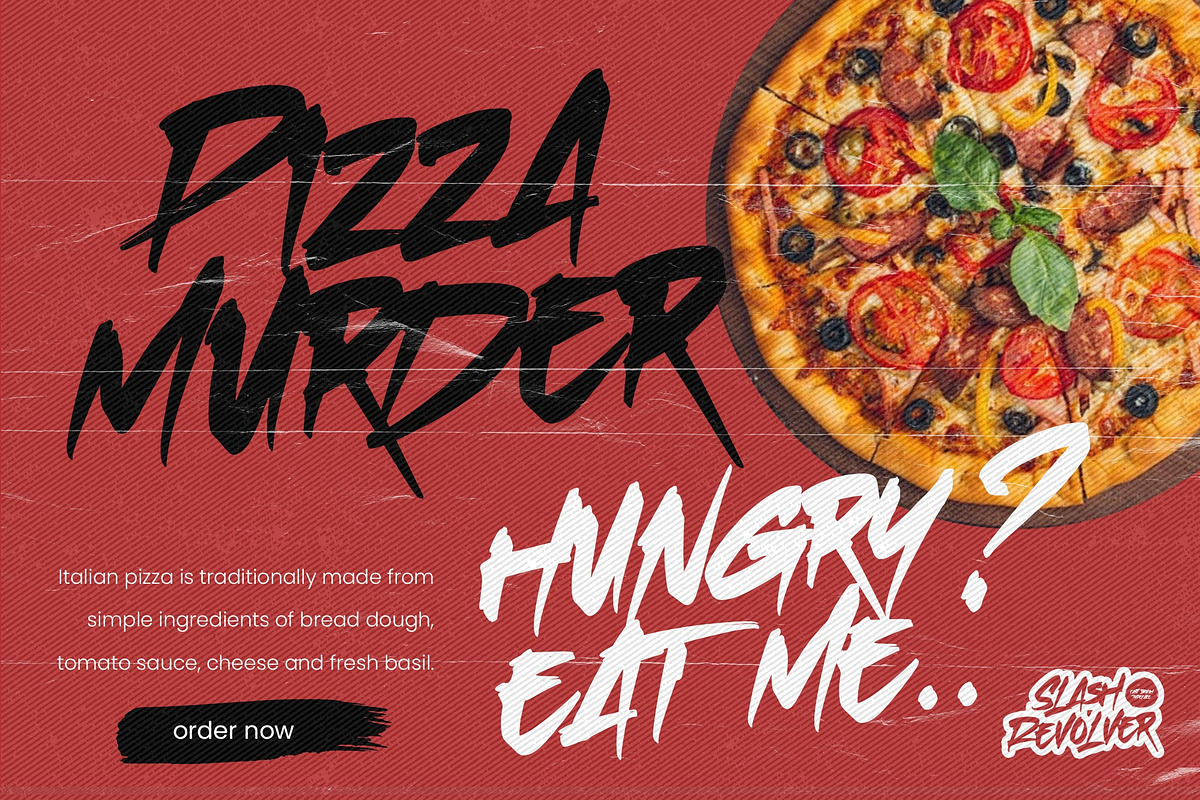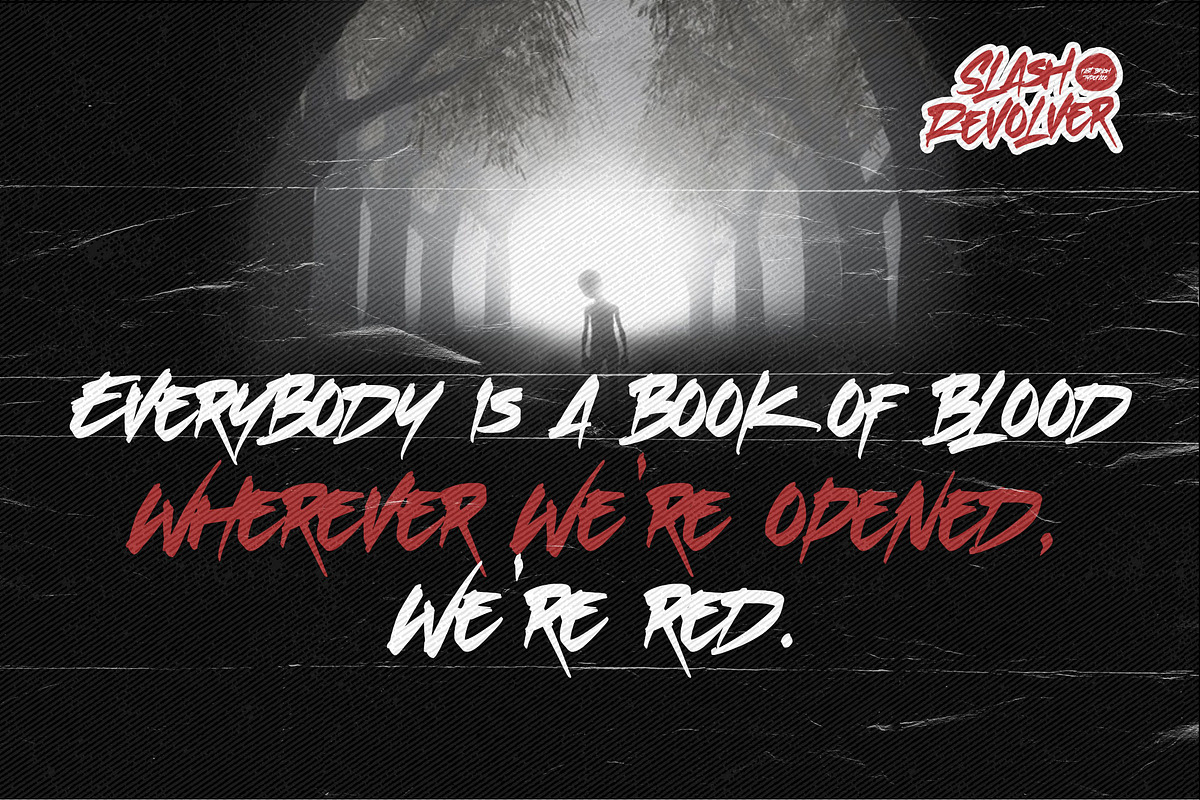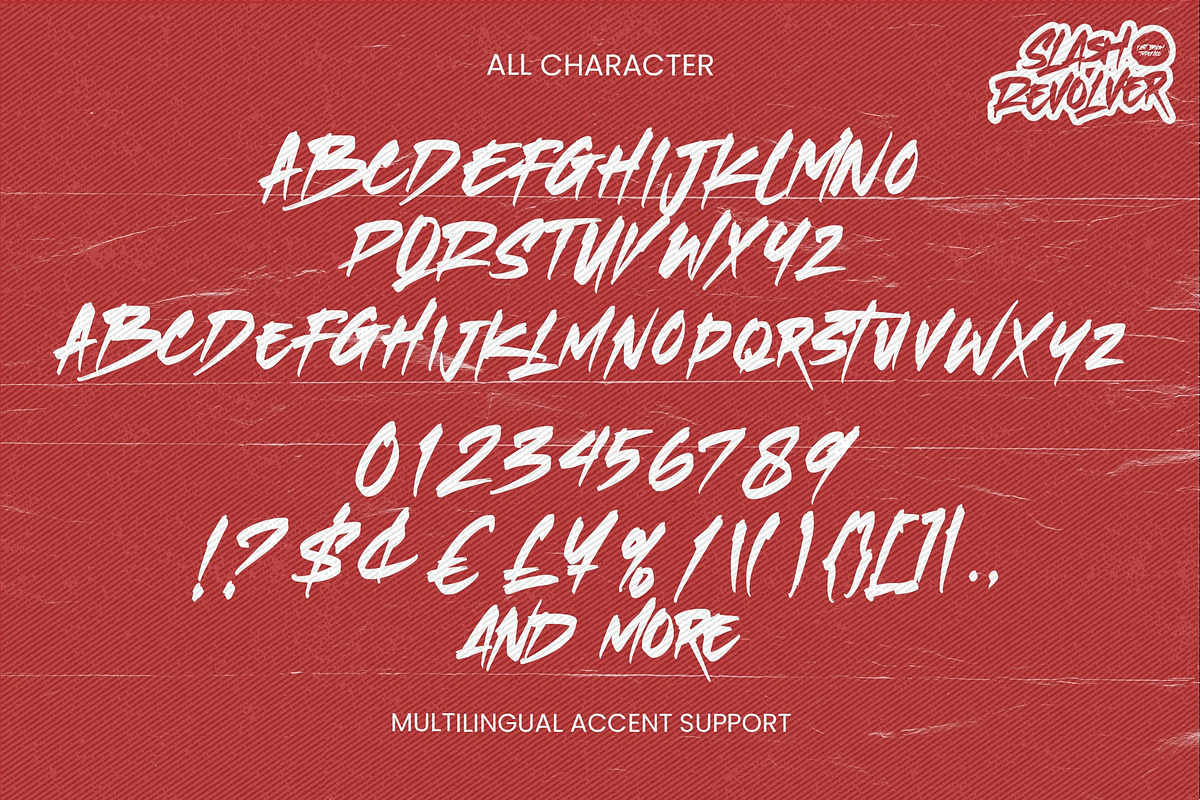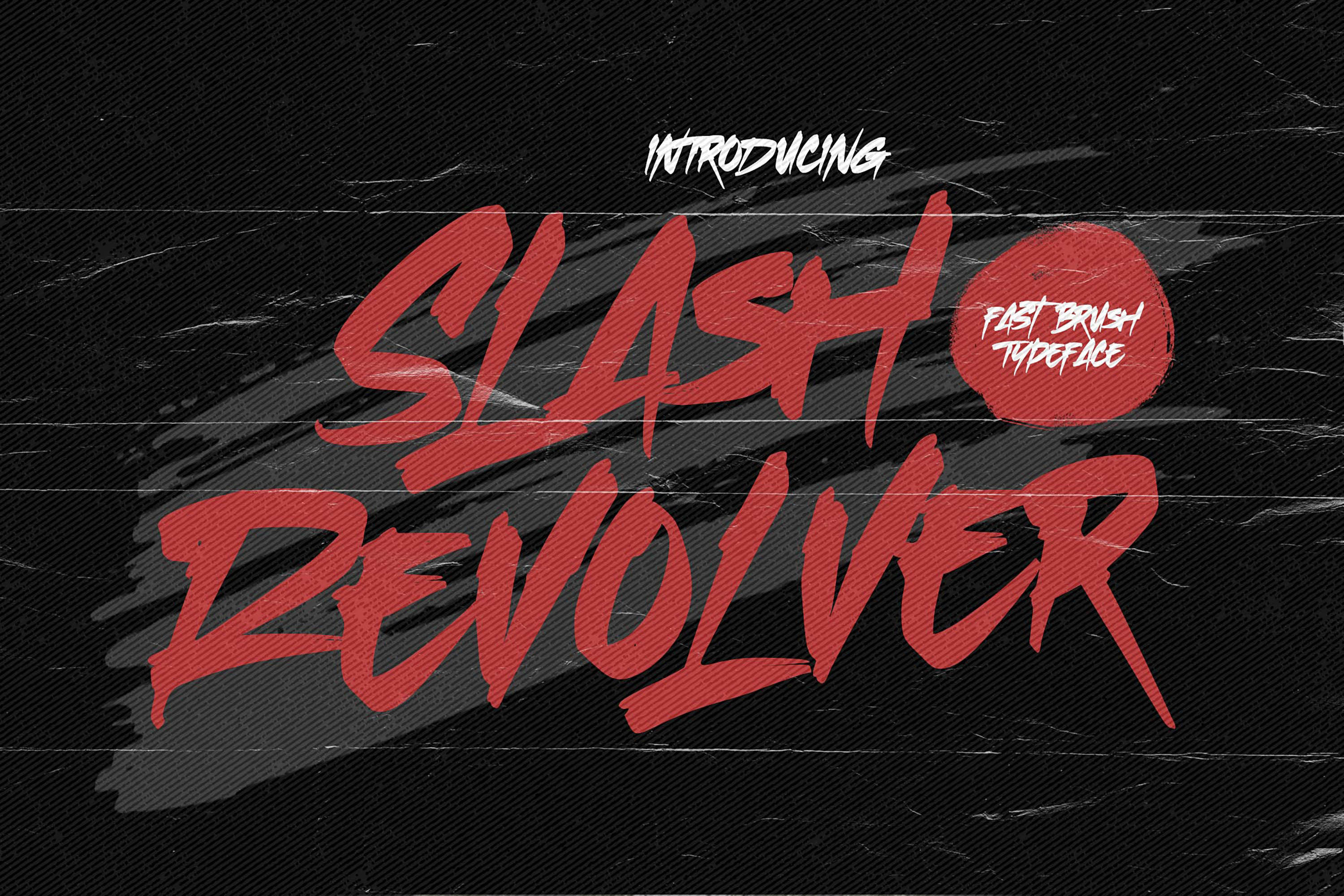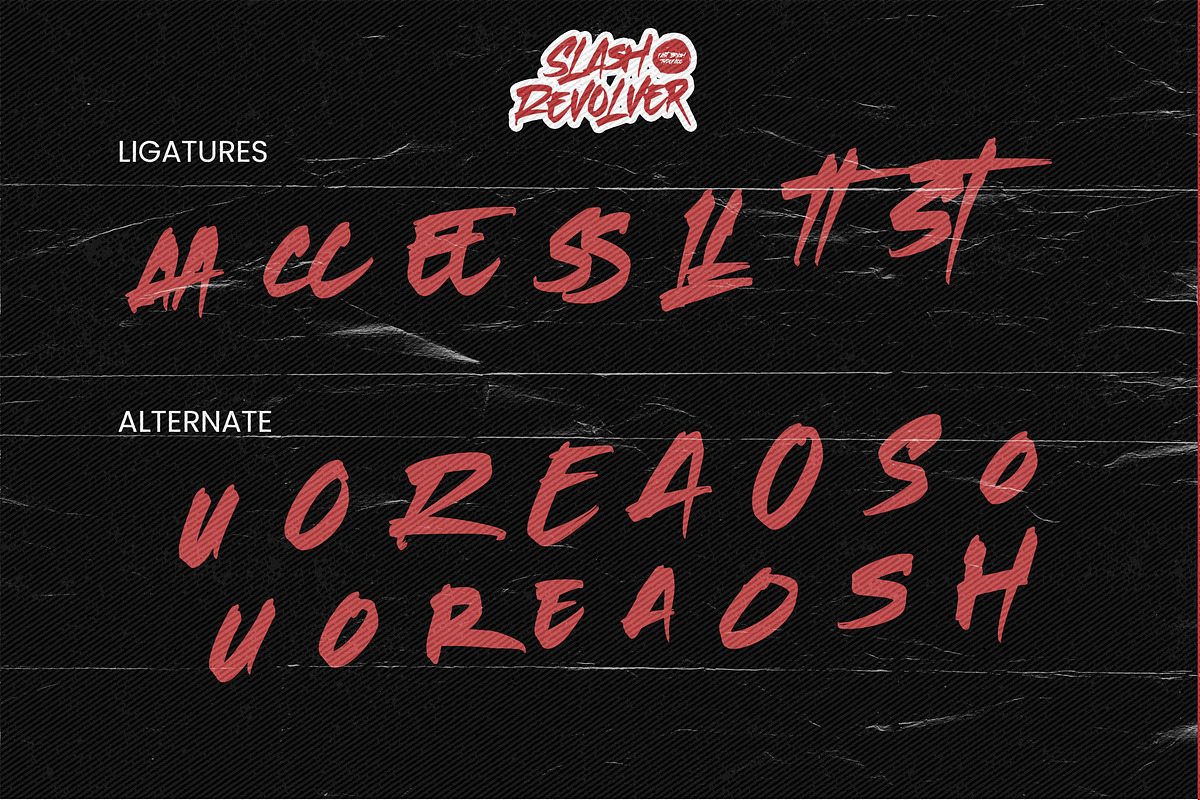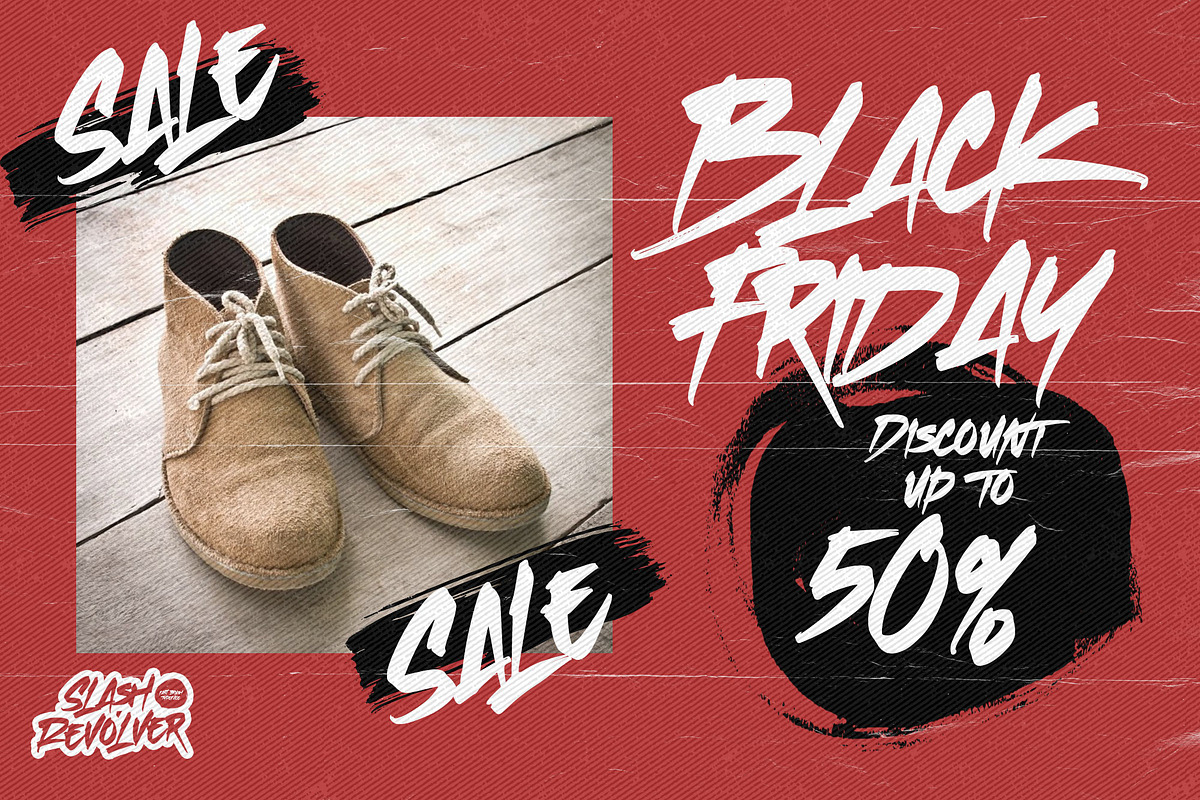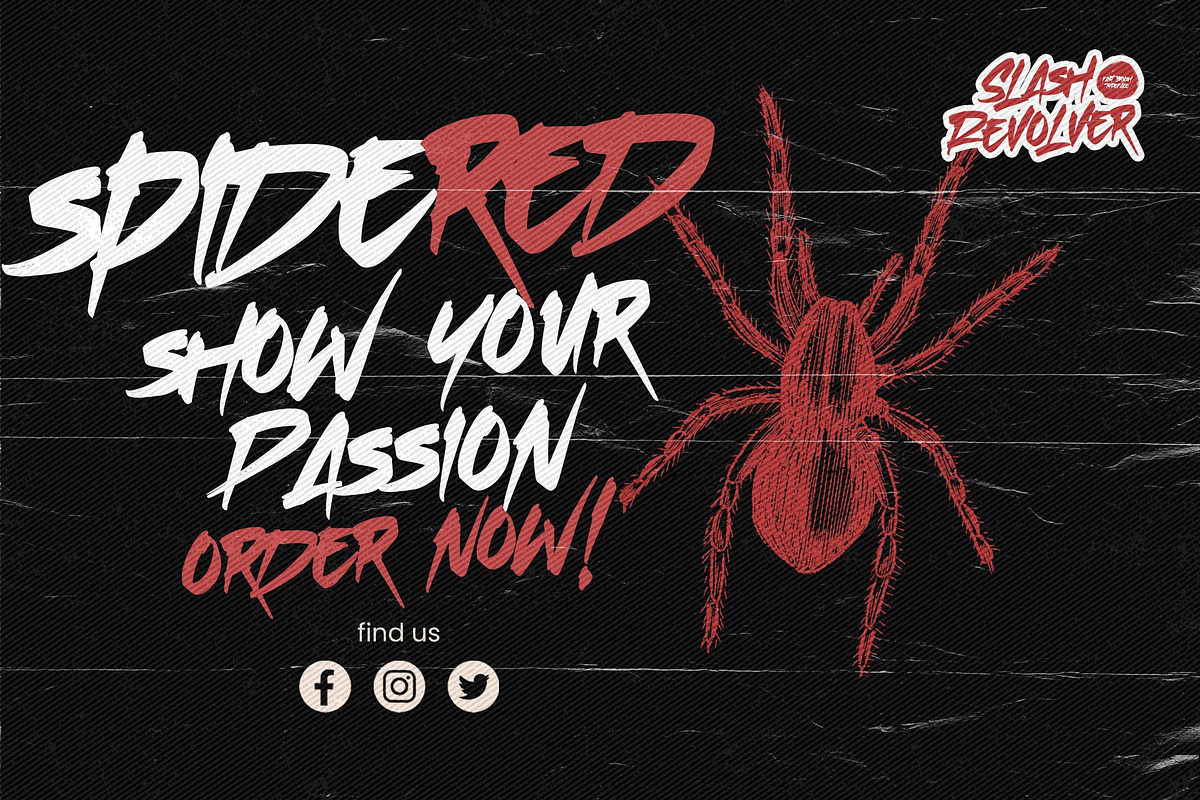
Slash Revolver – Brush Typeface
Hello Everyone, introduce our new product Slash Revolver is a Freehand Written Font with a Brush Style and classy style, this font is great for your creative projects such as watermark on photography, and perfect for logos & branding, photography, invitation, watermark,advertisements,product designs, stationery, wedding designs,label ,product packaging, special events or anything that need Slash Revolver taste. That is why Slash Revolver has authentic and strong characteristic more natural look. You can activate Ligature OpenType panel and alternate glypsh.